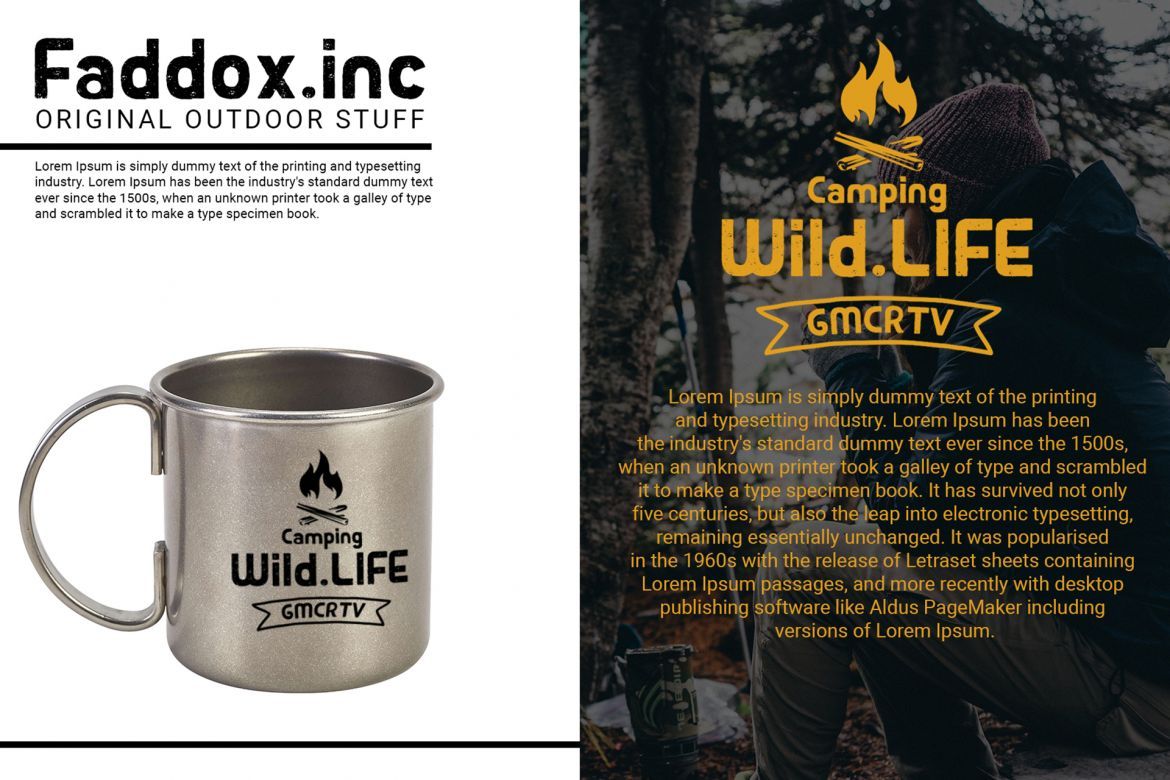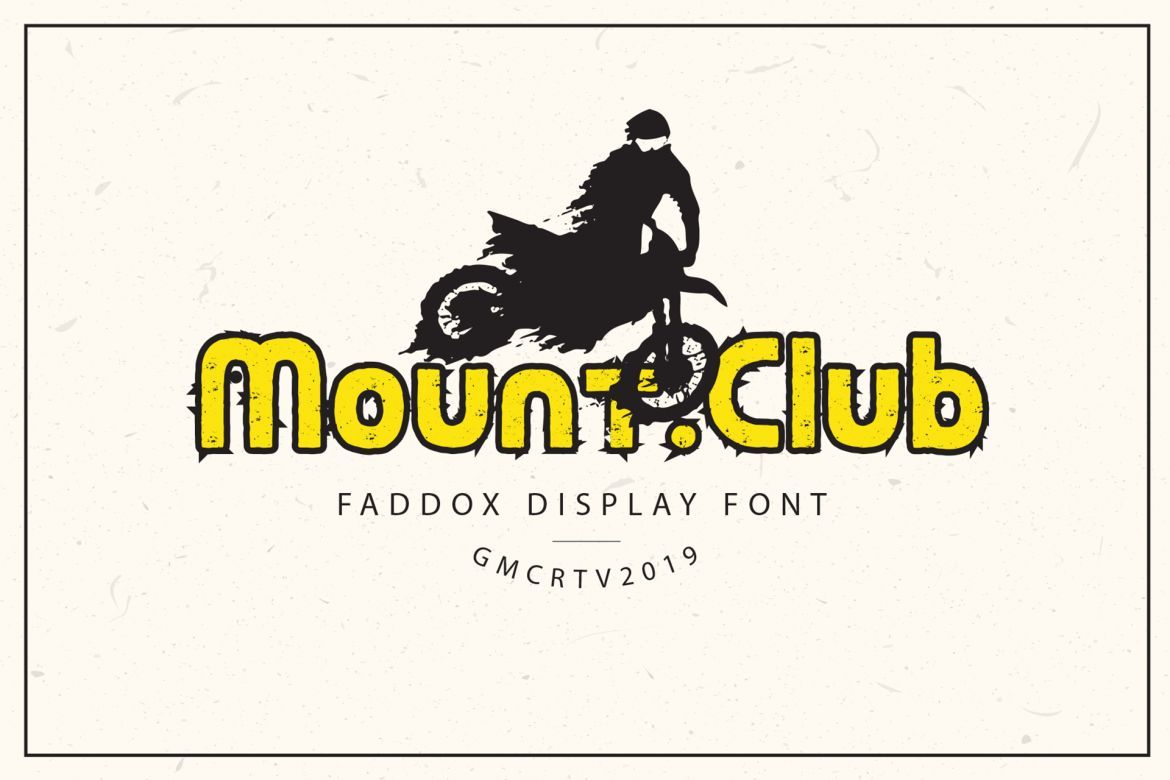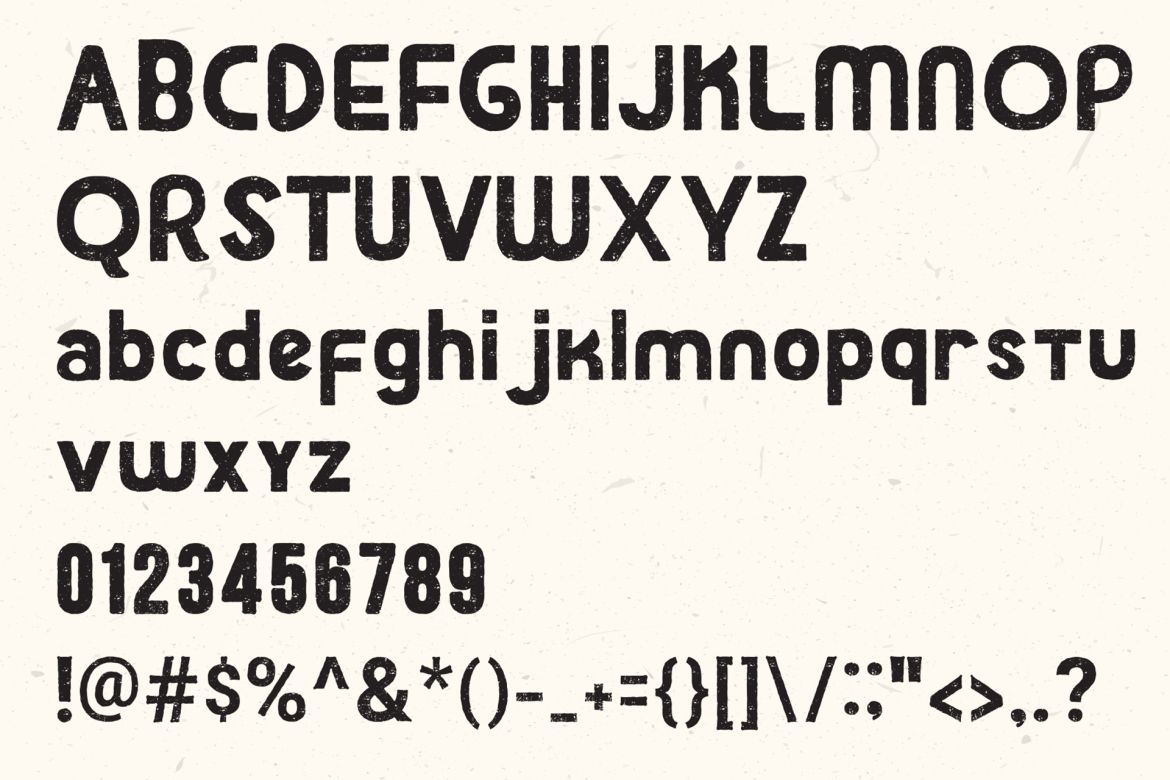
Faddox Font
-- Powerful / Elegant / Retro --
Faddox is a sans font family and sophisticated sans serif. Inspired by a Vintage motorbike poster with a strongest look. it's perfect for you to show your design or product in professional way.
USE Faddox works great in any branding, logos, magazines, poster, films.
• original hand drawn font
• perfect for automotive poster
• perfect for retro style